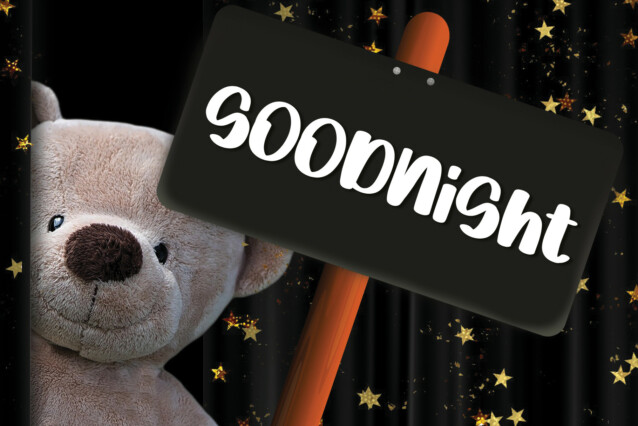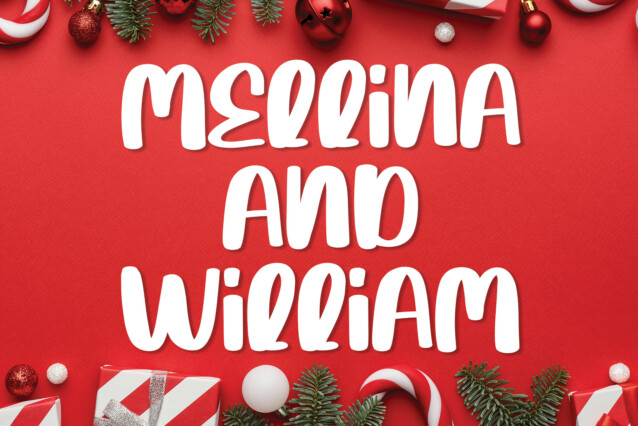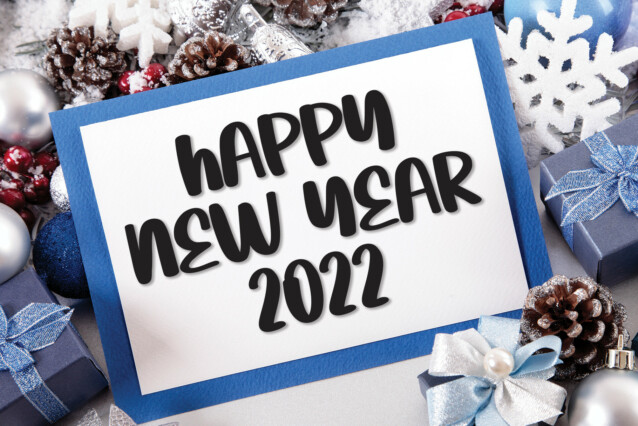
Morning Snow Brush Font
Morning Snow Brush Font is a fun and friendly handwritten display font. Add it confidently to your creative ideas and you will love the results!